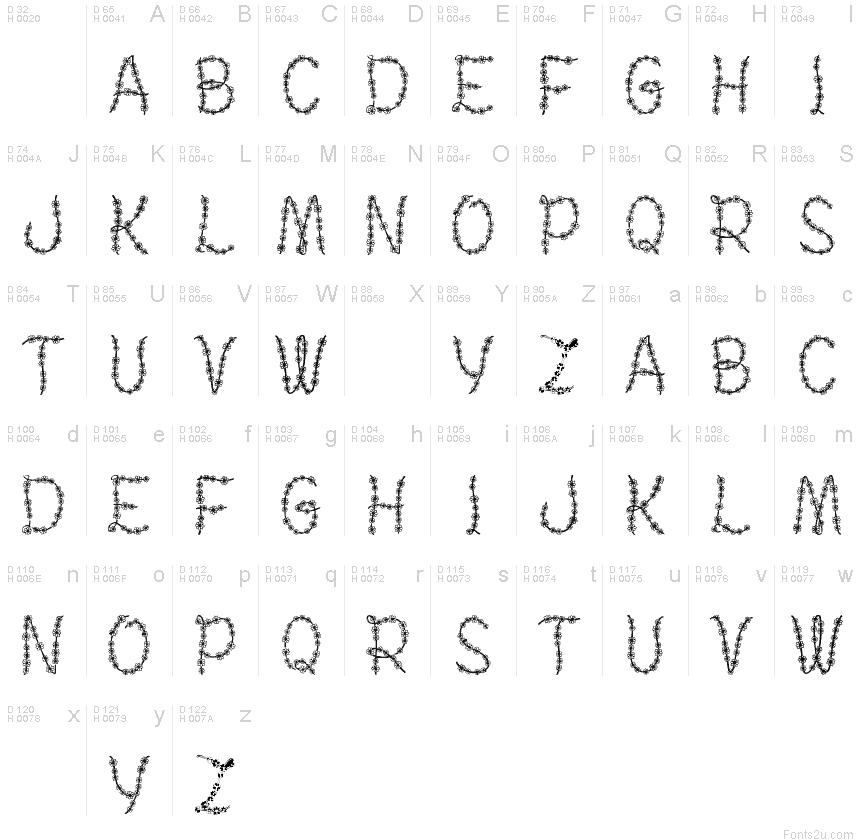
Judy's Garland by Surrender Dorothy! is a free floral display font built from slender, hand-drawn letters wrapped in tiny blossoms and leafy sprigs. The wandering outlines and uneven clusters make the forms look like flexible stems shaped into lettering, with a light, whimsical finish rather than a formal botanical engraving.
Its storybook garden style is especially apt for wedding invitations and spring event posters, and the flower-covered lines can also turn children's book covers into part lettering, part illustration. Florists, garden shops, and handmade gift brands are the clearest audience for its cheerful plant motif, particularly when a project already draws on wreaths, pressed flowers, or cottage-garden imagery.